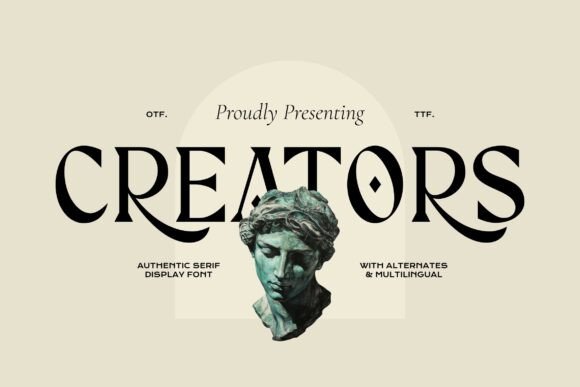
Introducing Creators Font: A Timeless Serif Display Font
In the world of typography, a well-crafted font can elevate a design from ordinary to extraordinary. Creators Font is a striking serif display font that embodies the perfect blend of classic elegance and artistic flair. Its distinctive character is a result of the dramatic contrast between thick and thin strokes, graceful curved serifs, and elegant, sweeping terminals. This beautiful typeface is sure to make a statement in any design project.
Distinctive Features of Creators Font
One of the standout features of Creators Font is its high-contrast stylized flourishes, evident in characters like the “A” and “R”. These flourishes give the typeface a refined, almost sculptural quality that sets it apart from other serif fonts. The unique diamond-shaped “O” is another bold, signature detail that adds to the font’s distinctive character.
Perfect for Luxury Branding and Editorial Headlines
With a balance of sophistication and expressiveness, Creators Font is perfect for luxury branding, editorial headlines, or any design that requires a sense of timeless beauty and creative impact. The font’s classic elegance and artistic flair make it an excellent choice for designers looking to create a lasting impression.
- Luxury branding: Creators Font is ideal for high-end brands looking for a sophisticated and elegant typeface.
- Editorial headlines: The font’s dramatic contrast and stylized flourishes make it perfect for editorial headlines that require a touch of elegance.
- Creative designs: Creators Font is a versatile typeface that can be used in a variety of creative designs, from posters to packaging.
Easy Access to Alternates and Flourishes
One of the best features of Creators Font is its PUA (Private Use Area) encoding, which allows designers to access all alternates and flourishes with ease. No design tools are required, making it easy to use the font in any design project. This feature is especially useful for designers who want to experiment with different variations of the font.
Key Features of Creators Font
- Striking serif display font with classic elegance and artistic flair
- Dramatic contrast between thick and thin strokes
- Graceful curved serifs and elegant, sweeping terminals
- High-contrast stylized flourishes in characters like the “A” and “R”
- Unique diamond-shaped “O” adds a bold, signature detail
- Perfect for luxury branding, editorial headlines, and creative designs
- PUA encoding for easy access to alternates and flourishes
Why Choose Creators Font?
There are many reasons why designers should choose Creators Font for their next project. Here are a few:
- Timeless beauty: Creators Font has a timeless quality that will never go out of style.
- Versatility: The font can be used in a variety of design projects, from luxury branding to editorial headlines.
- Ease of use: PUA encoding makes it easy to access all alternates and flourishes.
- Unique character: The font’s distinctive character sets it apart from other serif fonts.
In conclusion, Creators Font is a stunning serif display font that offers a perfect blend of classic elegance and artistic flair. Its distinctive character, high-contrast stylized flourishes, and unique diamond-shaped “O” make it a standout typeface. With its PUA encoding and ease of use, Creators Font is an excellent choice for designers looking to add a touch of timeless beauty and creative impact to their designs.